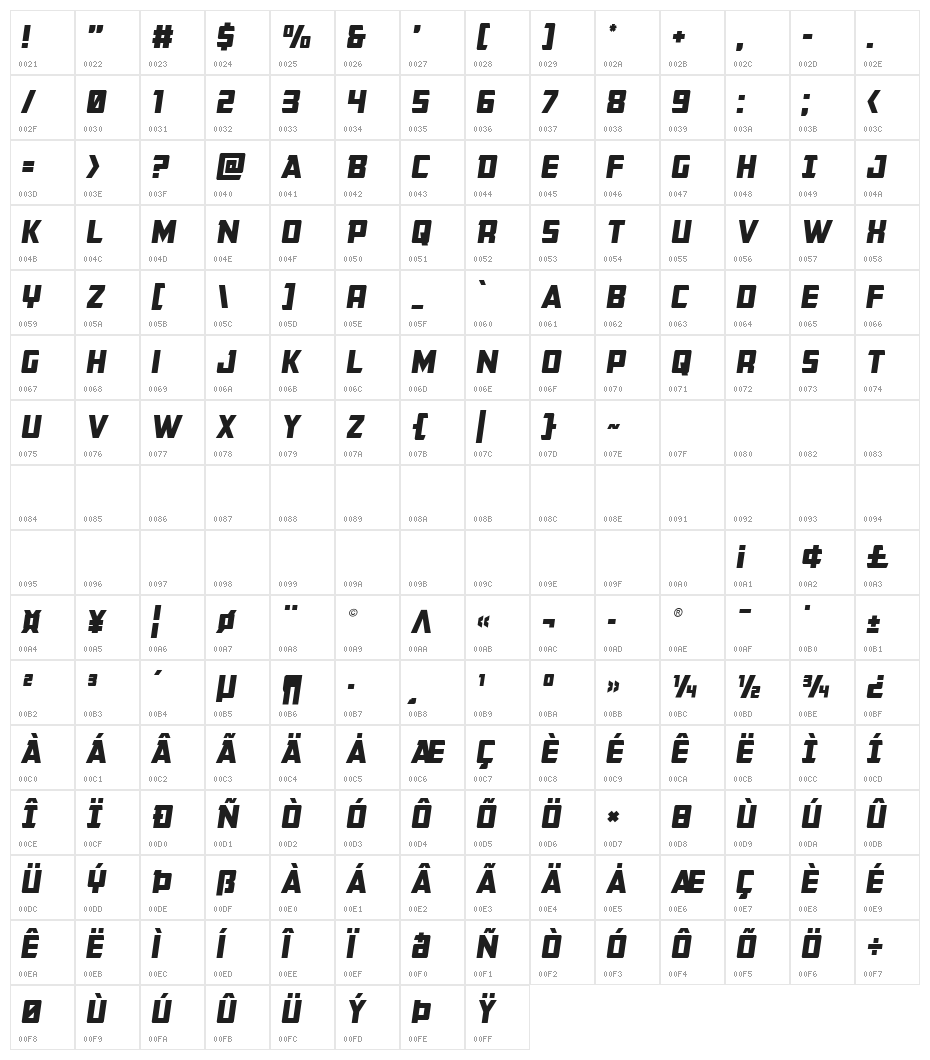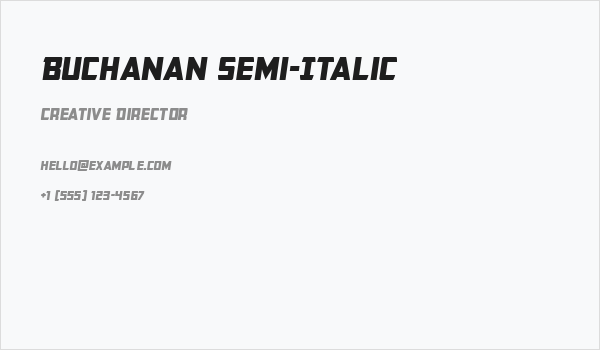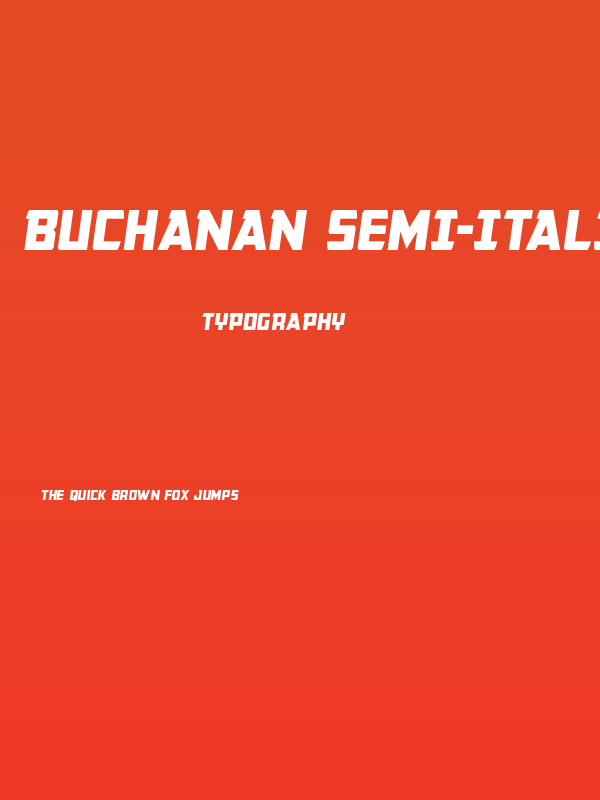
Buchanan Semi-Italic Font
Buchanan Semi-Italic Description
This font features a bold and dynamic style with a semi-italic slant, giving it a sense of movement and energy. The characters are robust and slightly condensed, with sharp angles and clean lines that convey a modern and assertive appearance. The uppercase and lowercase letters maintain a consistent design, ensuring readability while adding a touch of flair. The numerals are equally bold, matching the overall aesthetic of the alphabet. Special characters are included, each designed to complement the font's strong and confident look. This typeface is ideal for projects that require a striking and impactful visual presence.
| Proposed Projects | Ideal for sports branding, dynamic posters, modern advertising, and bold headlines. |